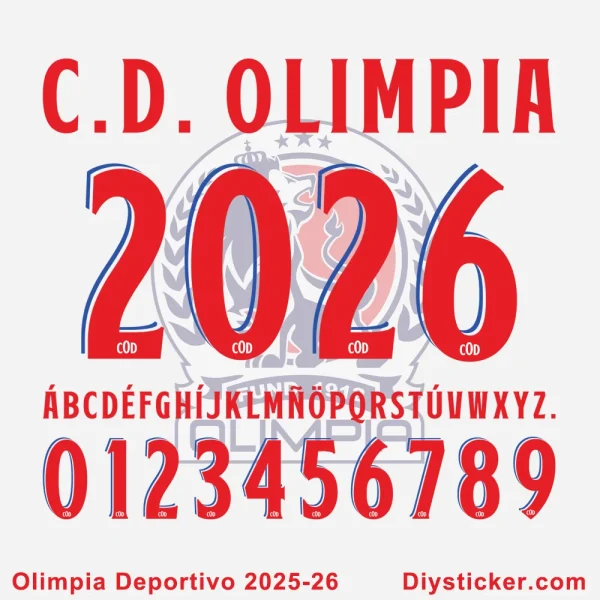
Club Deportivo Olimpia 2025-26 Font Downloads
Design with the legacy of Paraguayan football using the official Club Deportivo Olimpia 2025-26 Font. This professionally crafted typeface features the club’s distinctive lettering with special “C.D. Olimpia” branding elements, perfect for creating authentic jerseys, fan merchandise, and digital content for Los Decanos supporters.